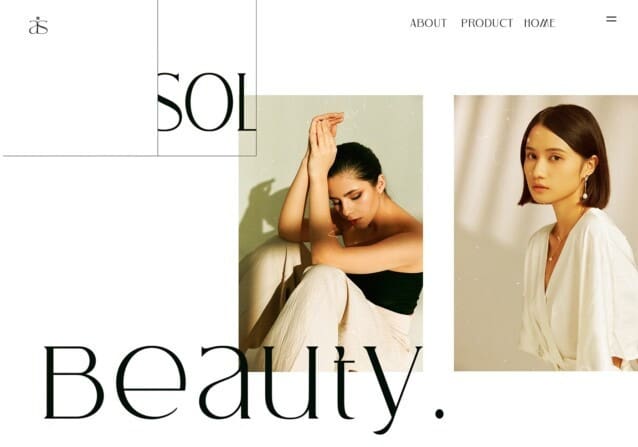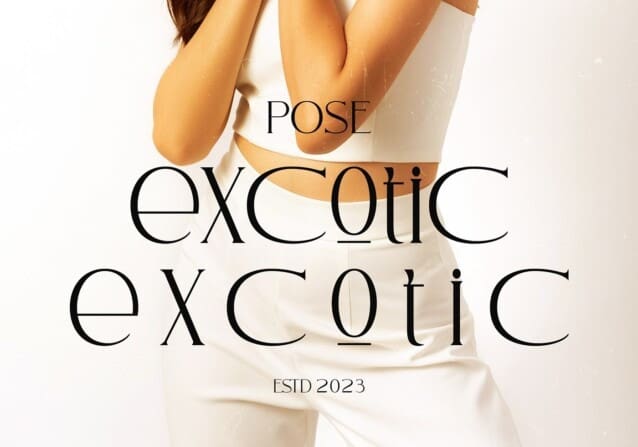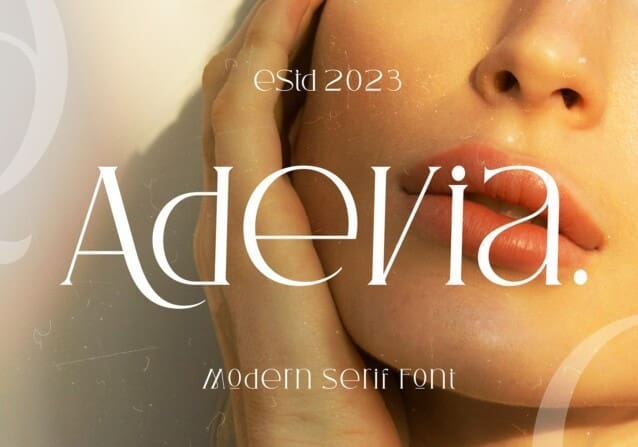
Adevia Font
Adevia Font is a balanced, smooth, elegant and stylish serif typeface. This font is specially designed to meet the needs of designers looking for an elegant handwriting style with a modern touch.